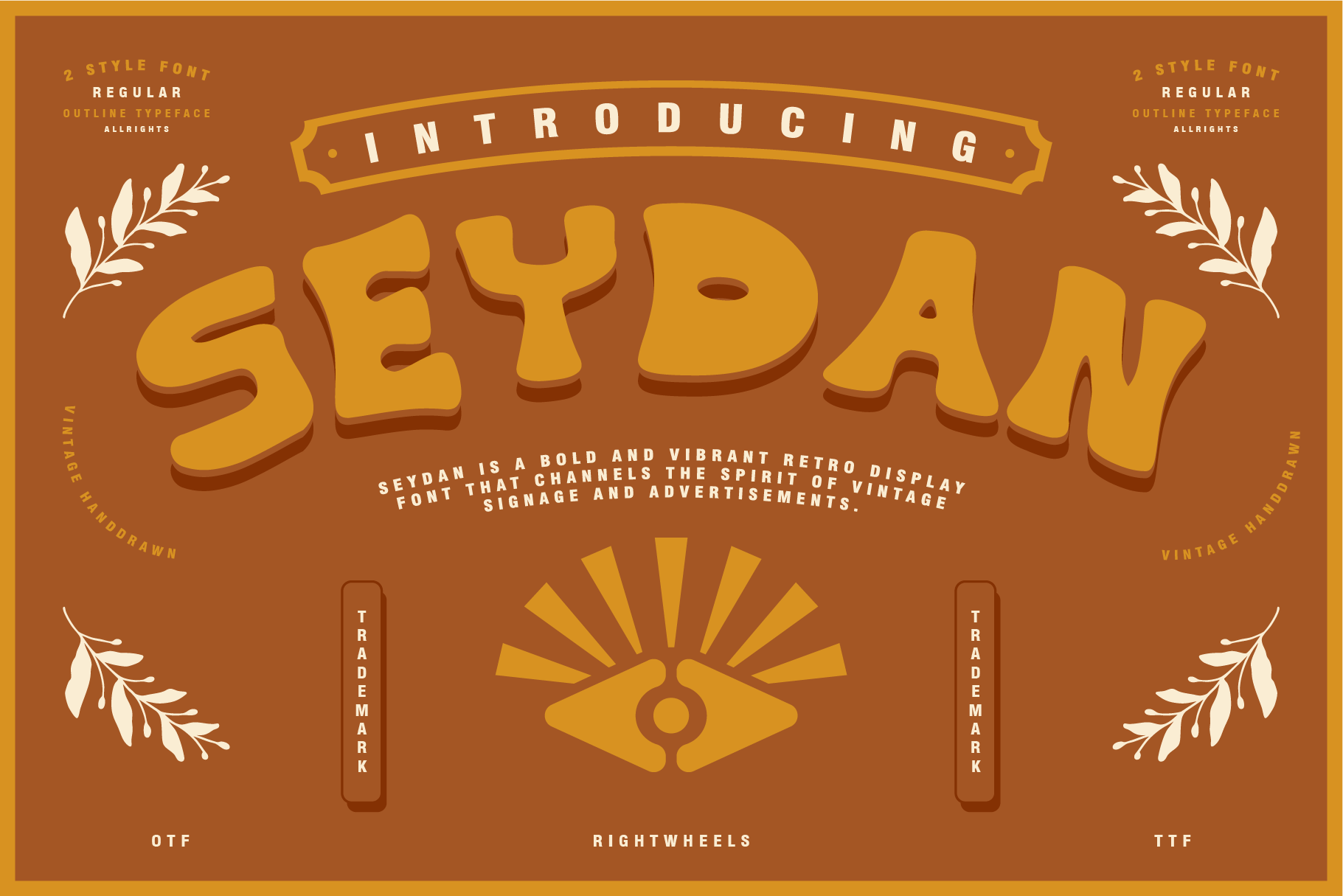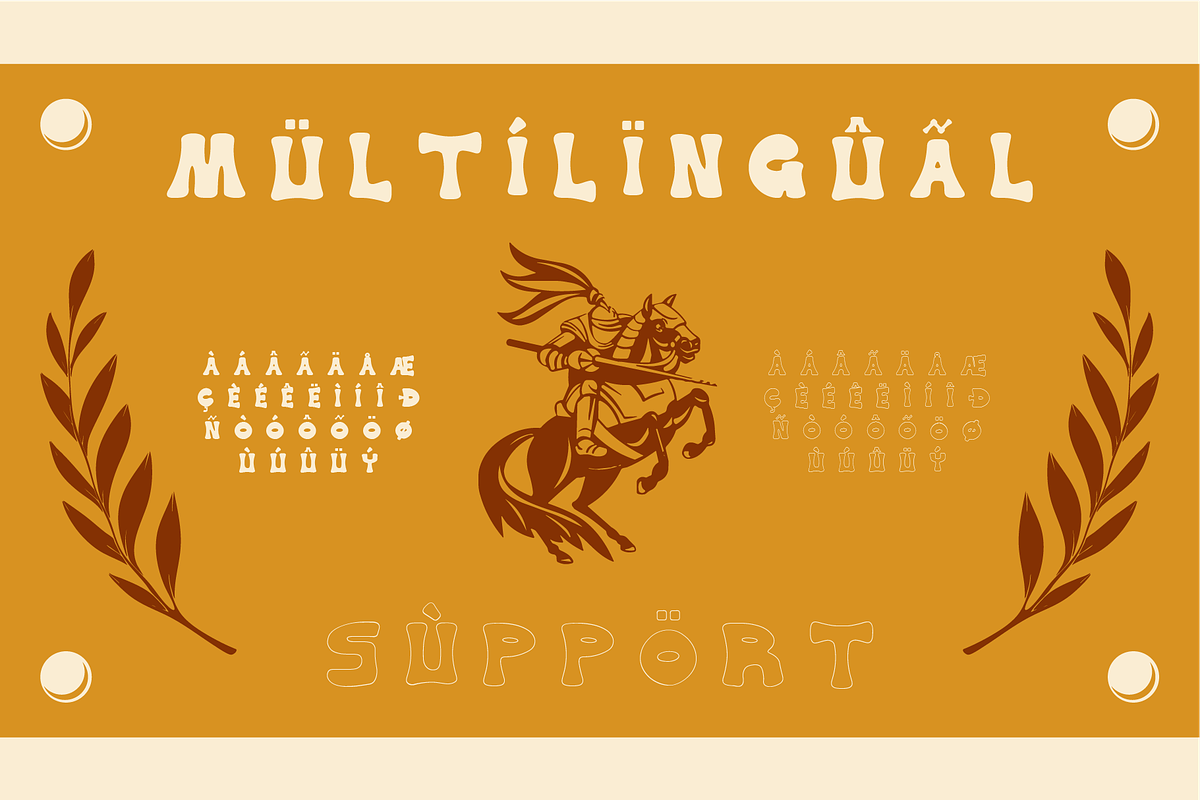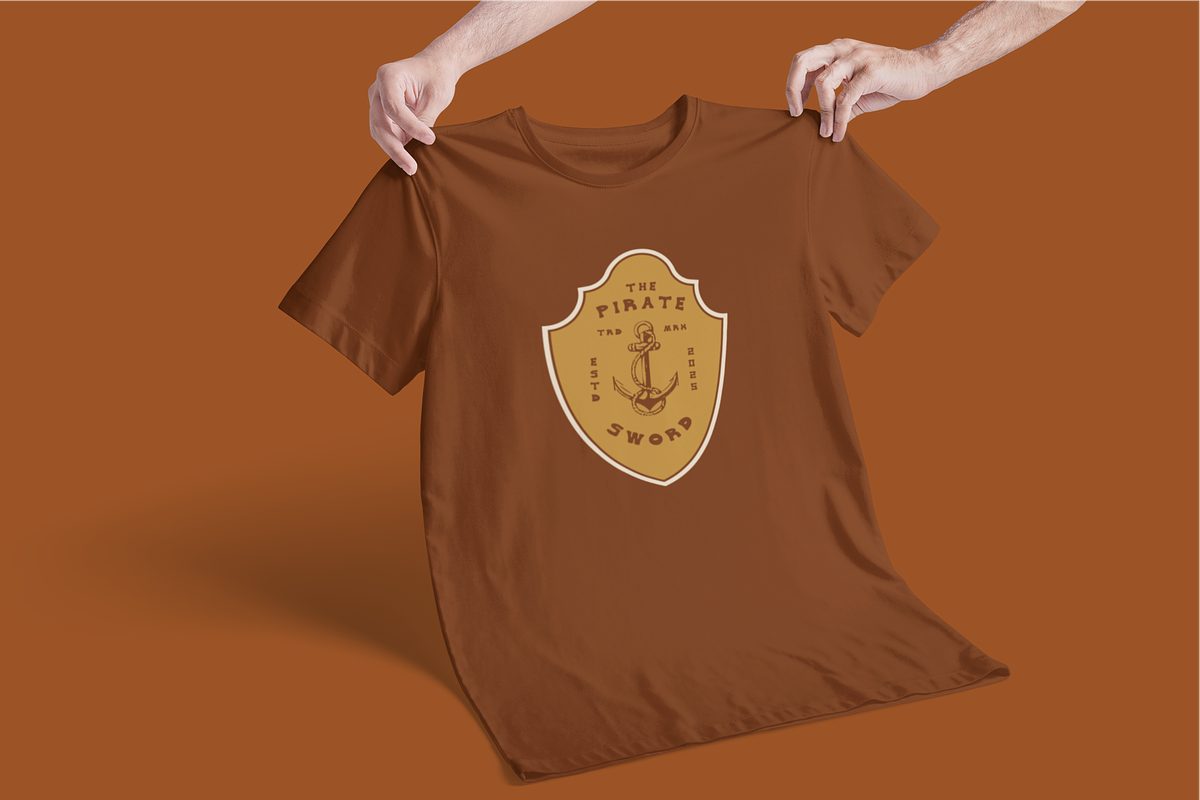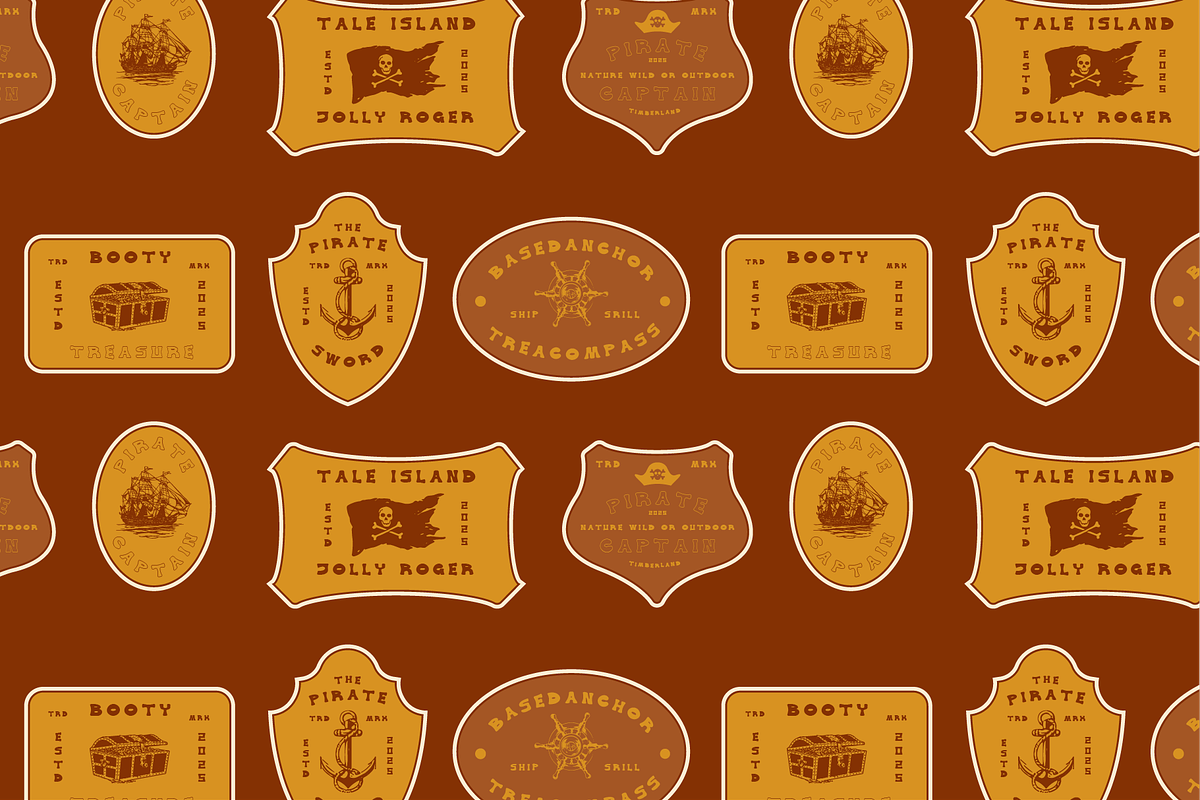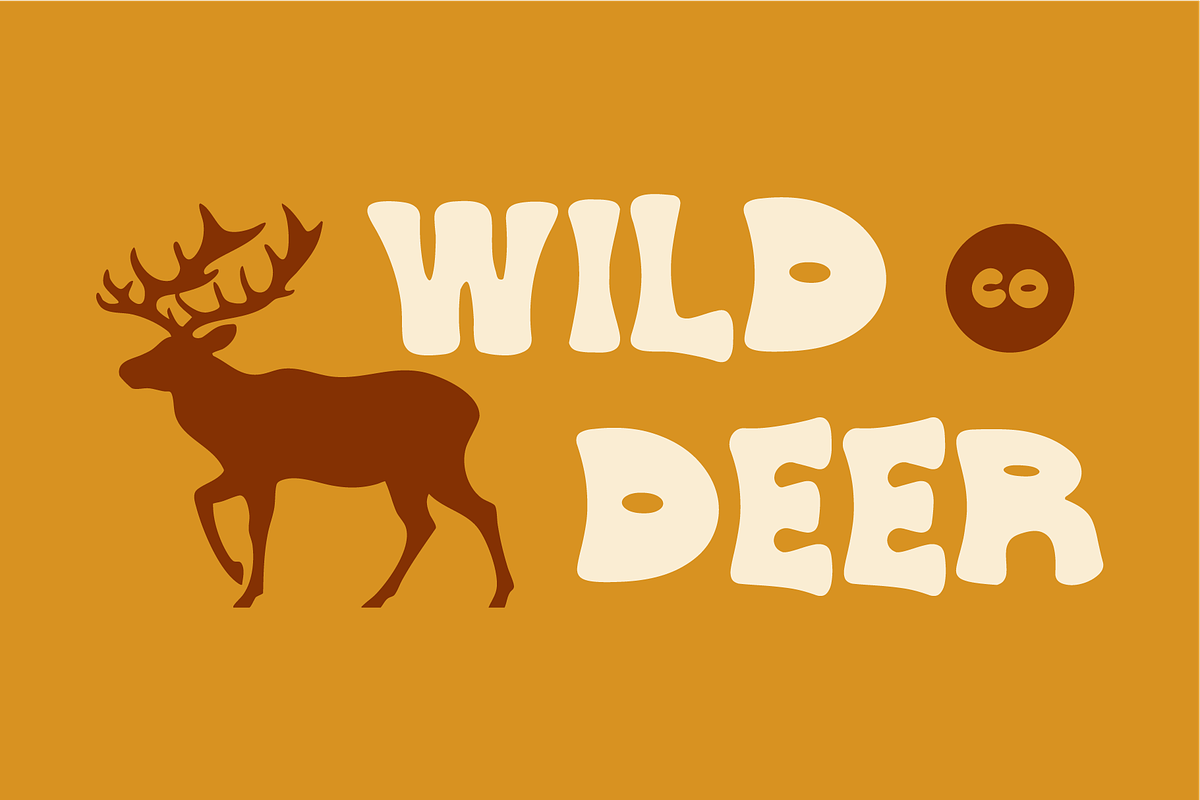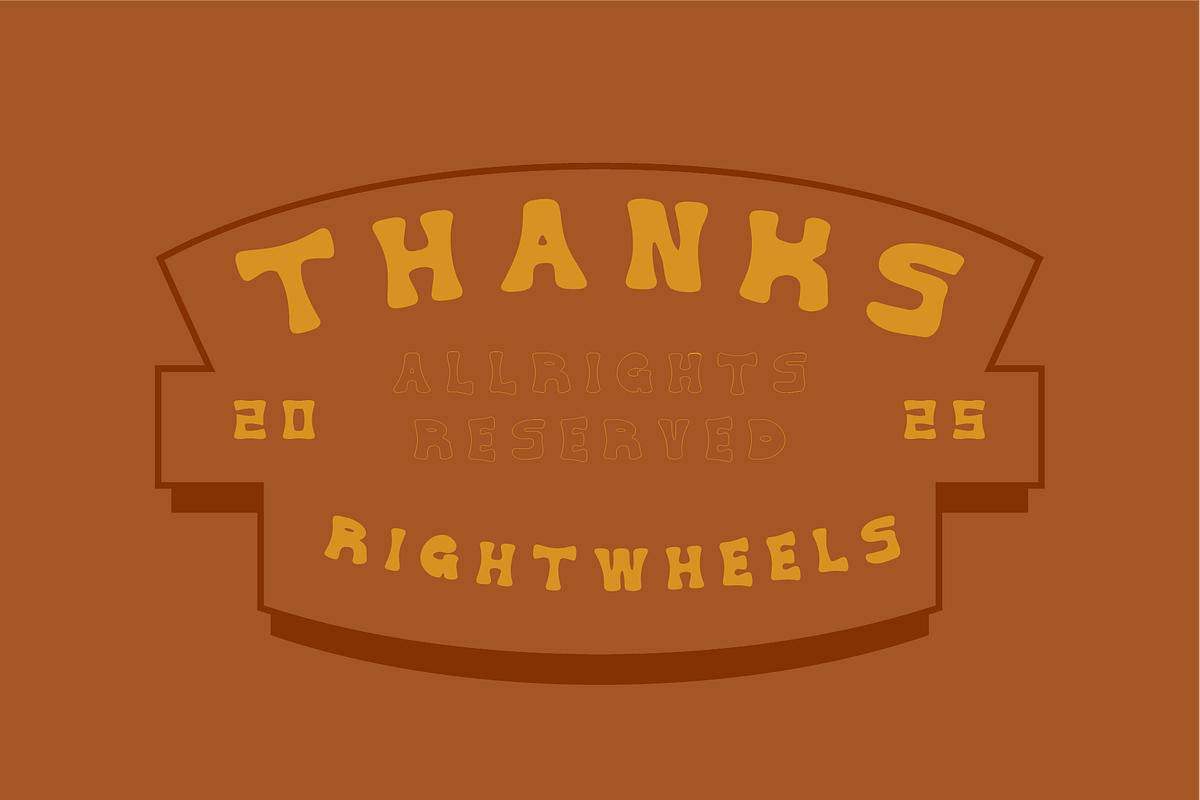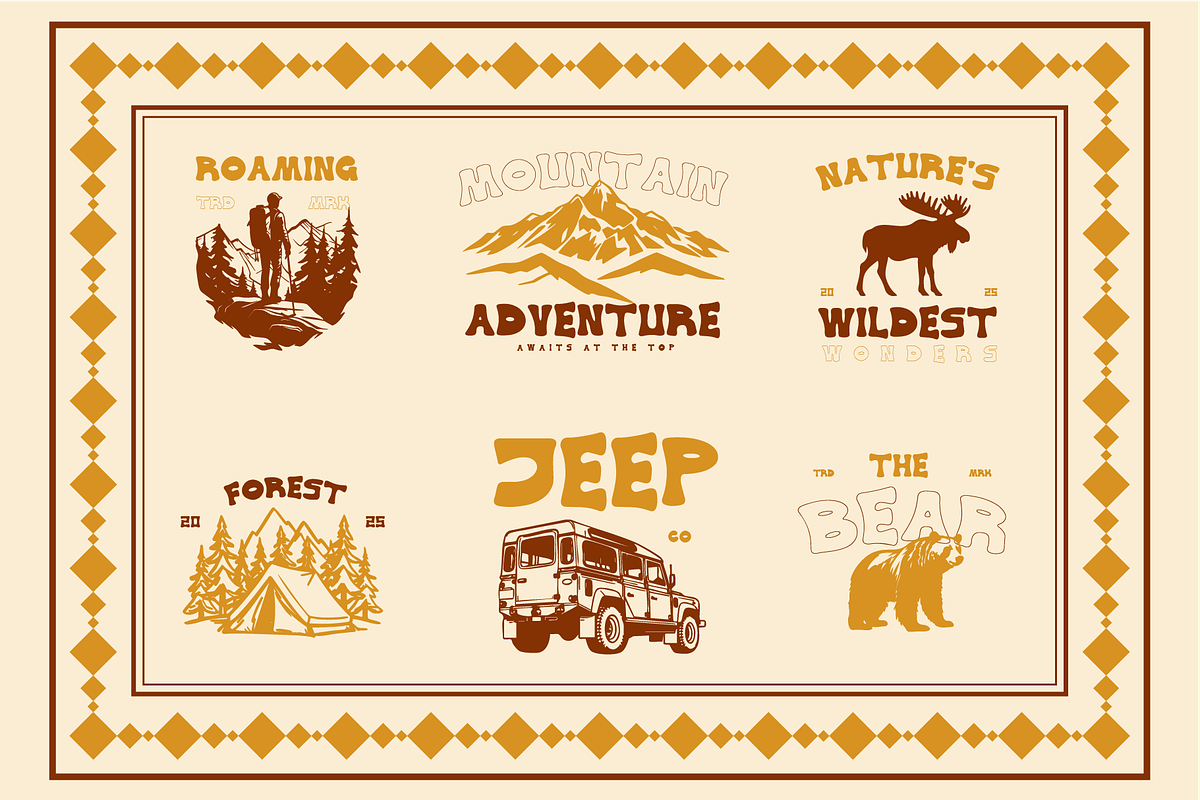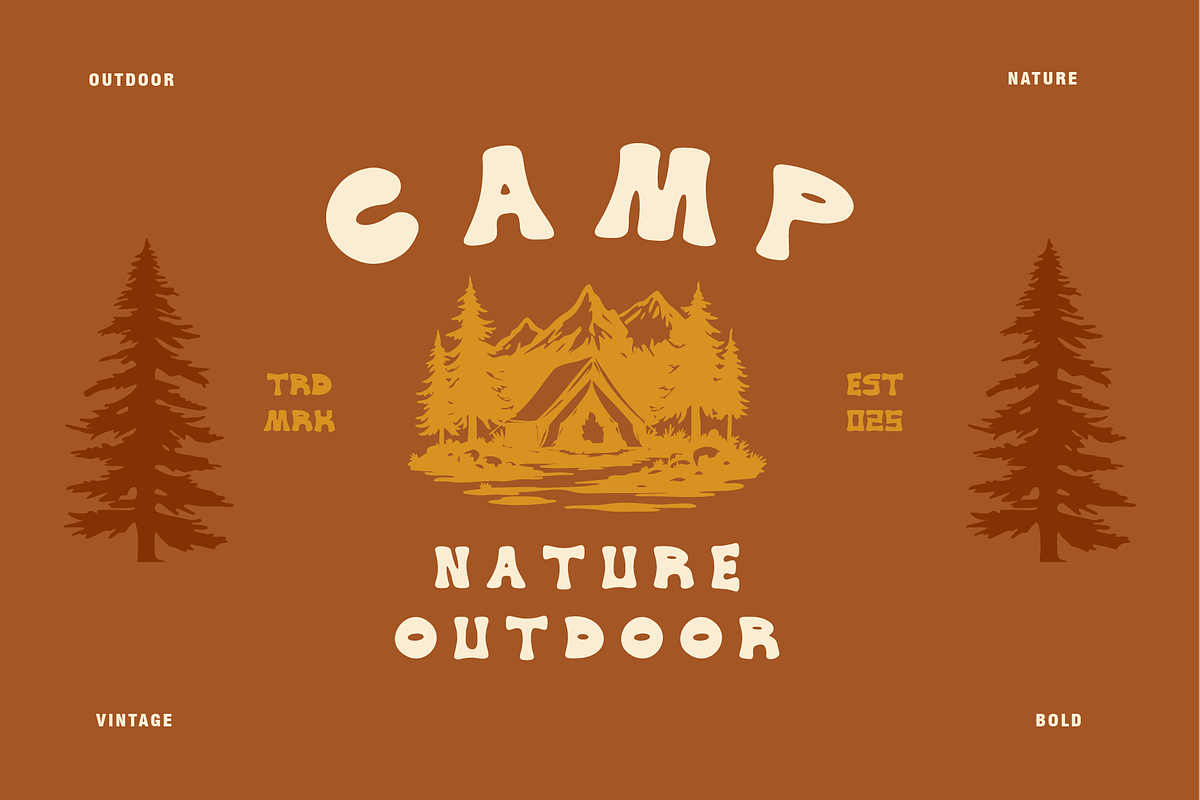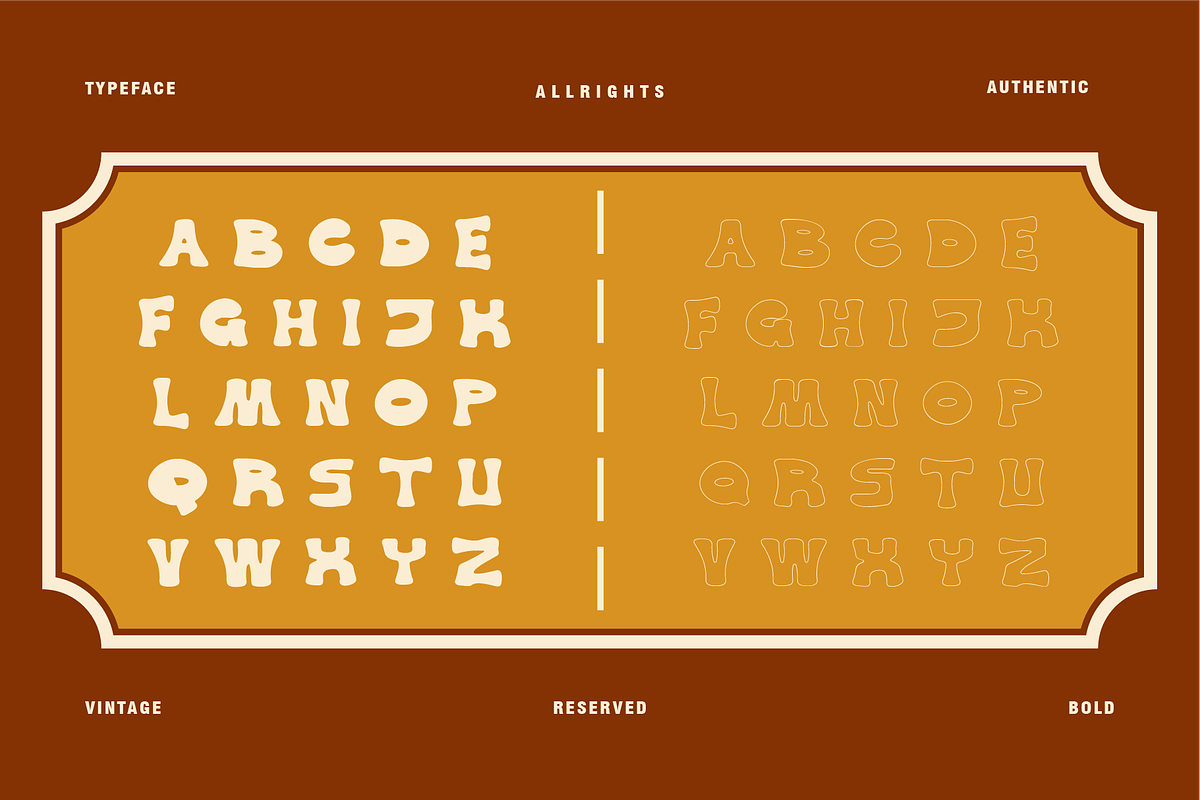
SEYDAN - Retro Display Font
Seydan is a bold and vibrant retro display font that channels the spirit of vintage signage and advertisements. Its sharp angles and unique letterforms evoke a sense of nostalgia, making it perfect for eye-catching headlines, posters, logos, and branding projects. With its strong character and stylish design, Seydan brings an energetic retro vibe to modern creative endeavors, combining timeless appeal with bold, contemporary flair.